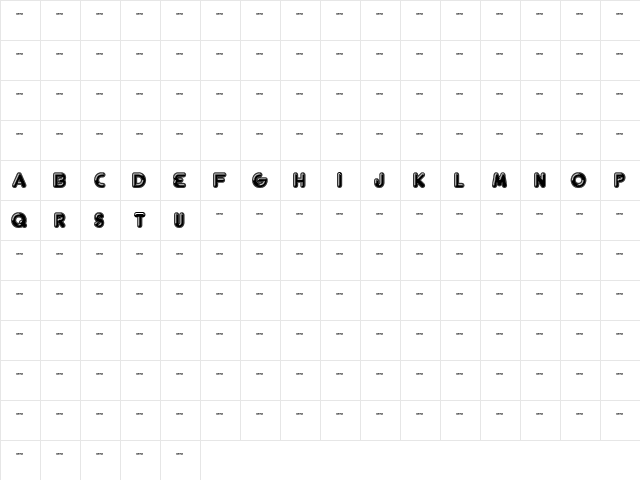
FT Helsingfurt Regular
Design Context for FT Helsingfurt Typeface
FT Helsingfurt is a composed and adaptable typeface that performs quietly and consistently across a wide range of design contexts.